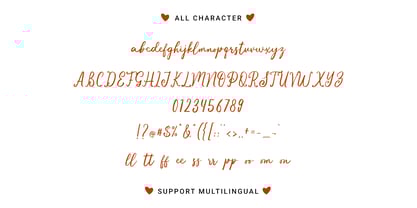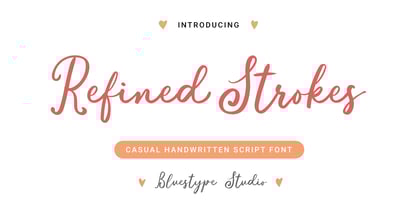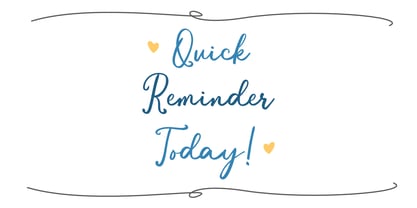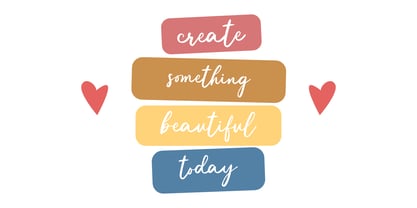
Refined Strokes
by Bluestype Studio
The Refined Strokes Font Family was designed by Jefri Dwi Alfatah and published by Bluestype Studio. Refined Strokes contains 1 styles.
Refined Strokes is a premium handwritten font that strikes the perfect balance between organic warmth and polished elegance. Designed with fluid motions and a sophisticated rhythm, this font captures the authentic feel of a high-end ink pen on textured paper. Whether you are designing timeless wedding invitations, luxury brand identities, or delicate social media quotes, Refined Strokes adds a touch of human connection without sacrificing professional clarity.